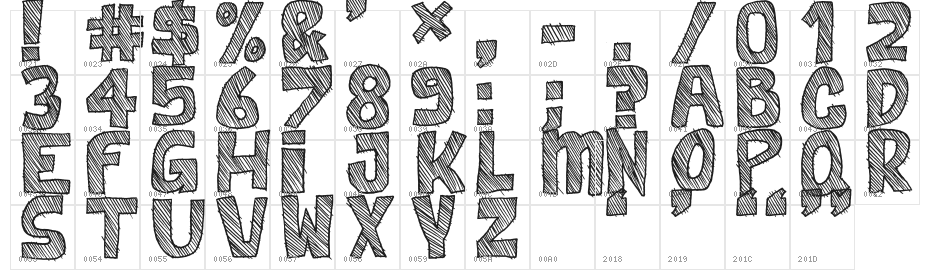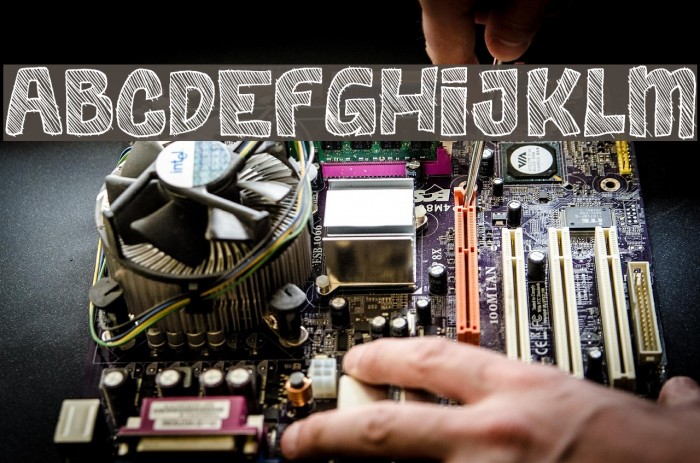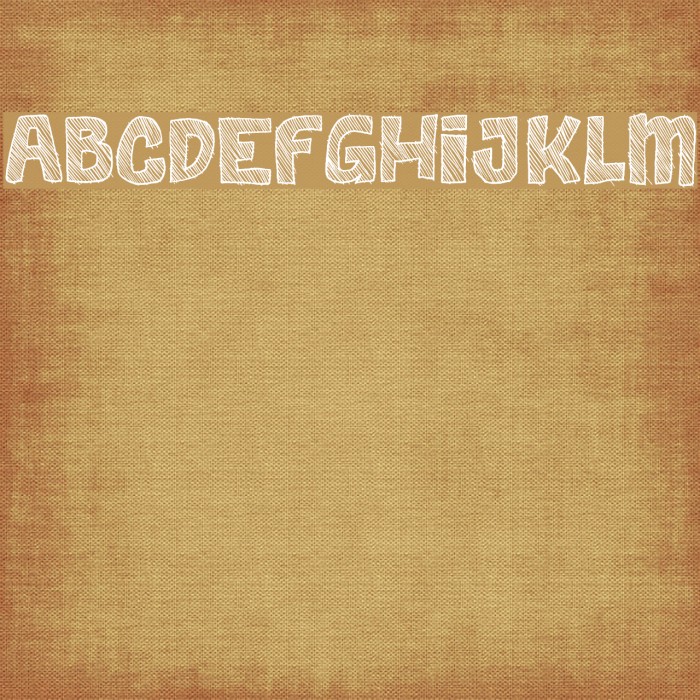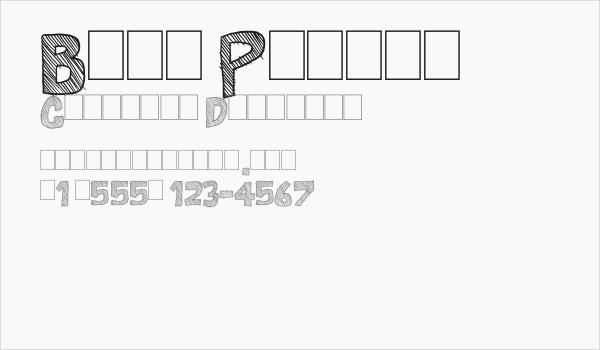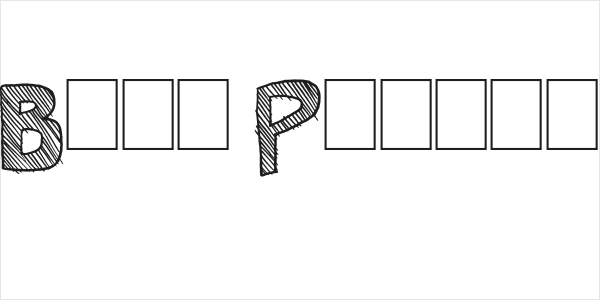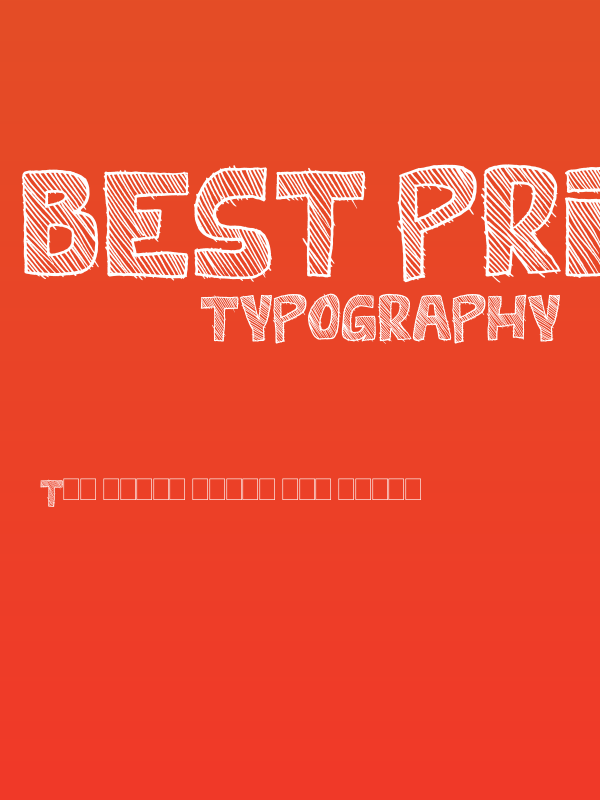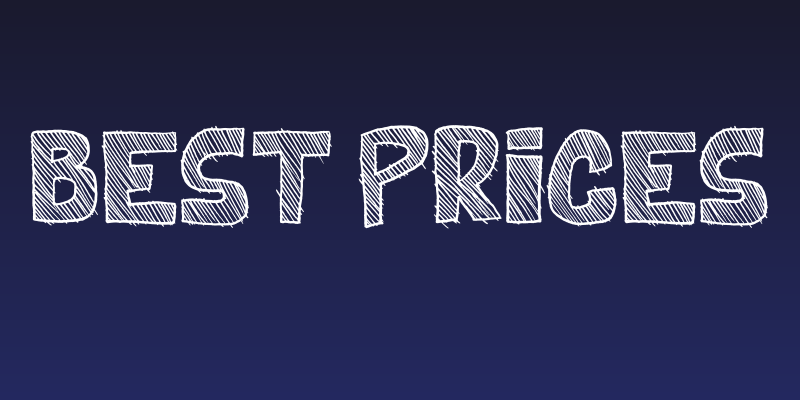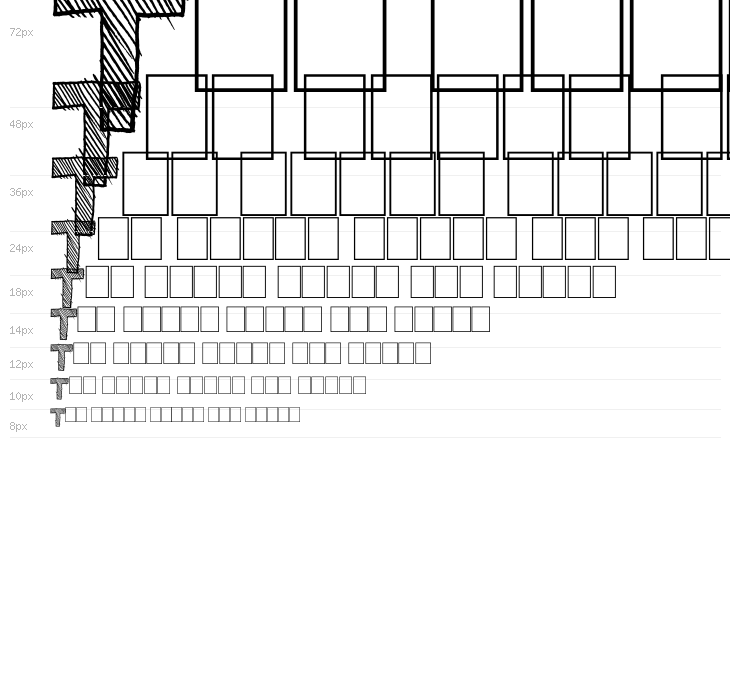
Best Prices Font
Best Prices Description
This font features a bold, hand-drawn style with a sketch-like appearance, giving it a playful and artistic vibe. The letters are uppercase and numerals are included, each character filled with diagonal hatching that adds texture and depth. The strokes are thick and consistent, creating a strong visual impact. The font's unique style makes it stand out, ideal for creative projects that require a touch of whimsy and individuality. The characters are evenly spaced, ensuring readability while maintaining its distinctive look.
| Proposed Projects | Ideal for posters, children's book covers, creative branding, and playful graphic designs. |